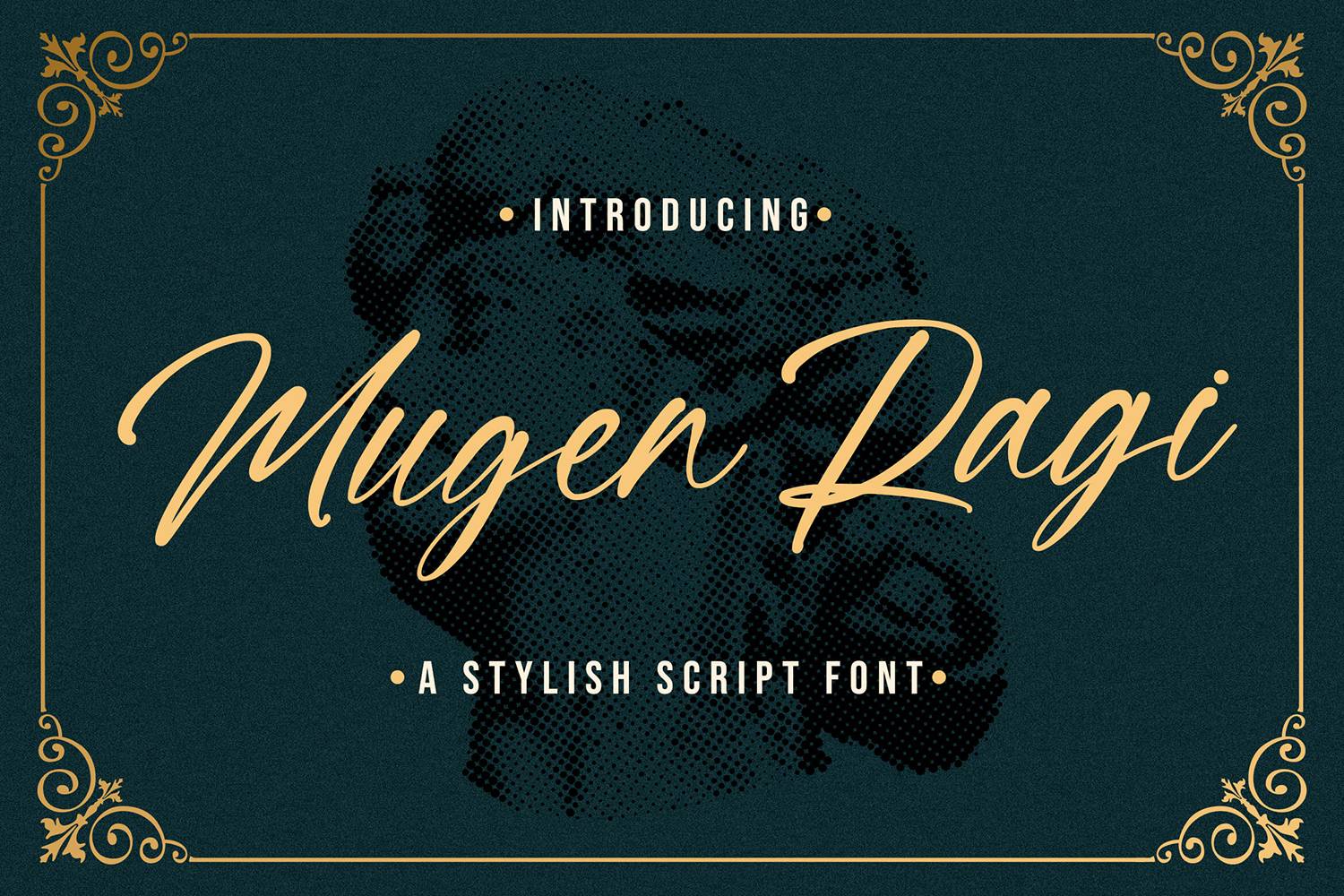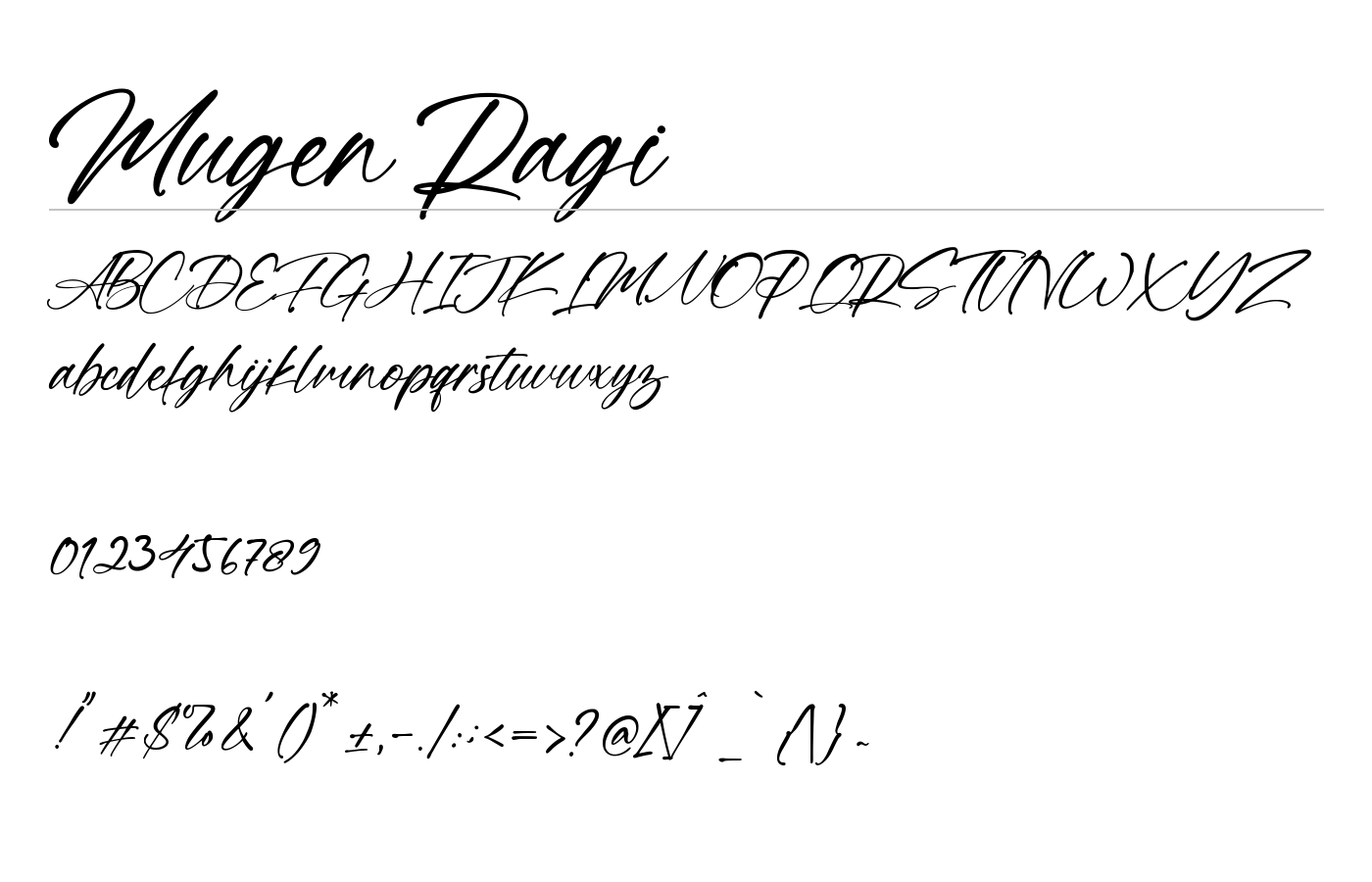
Mugen Ragi is an elegant script font with a fluid, handwritten style that exudes a natural and refined charm. Its delicate strokes and graceful curves make it perfect for adding a personal, sophisticated touch to invitations, branding, and creative projects that seek a stylish yet approachable feel. This font works best in display uses like logos and headlines where its distinctive personality can truly shine.
Mugen Ragi Font
About Mugen Ragi Font
| Font family | Mugen Ragi Font |